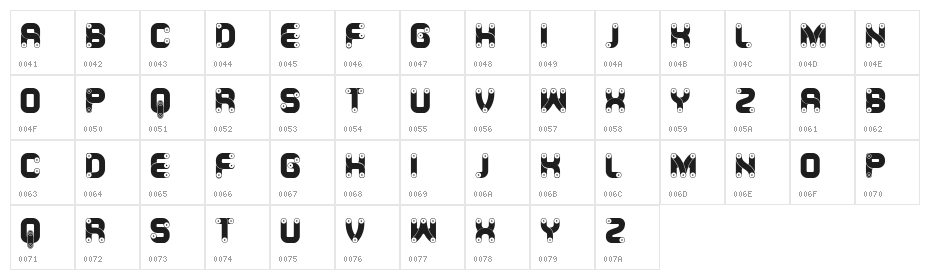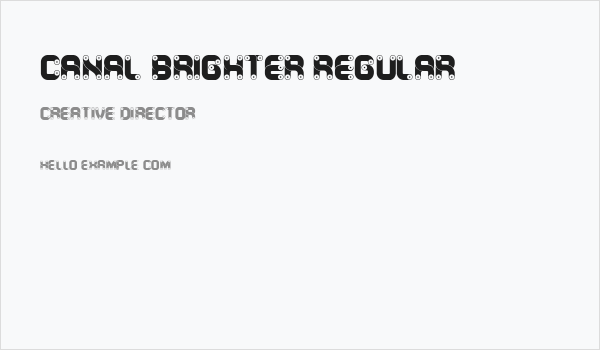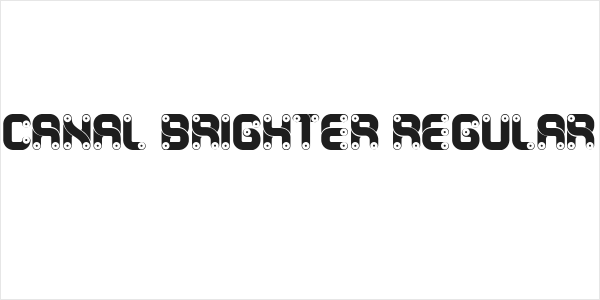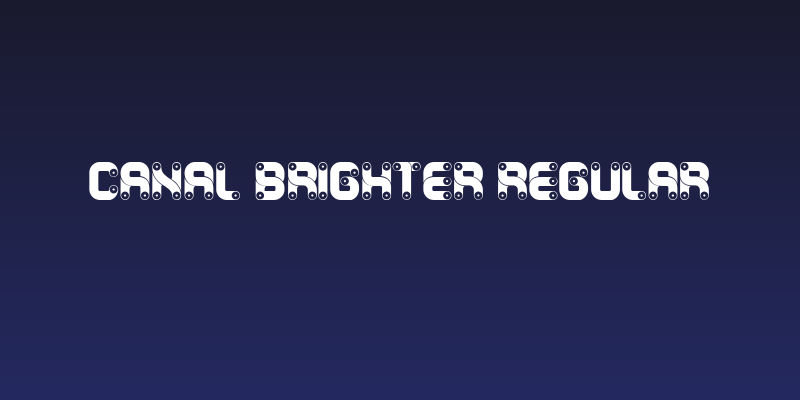
Canal Brighter Regular Font
Canal Brighter Regular Description
This font features a unique and playful design with a mechanical and industrial aesthetic. Each character is composed of bold, rounded shapes with circular cutouts, reminiscent of gears or mechanical parts. The letters are consistent in height and width, creating a uniform appearance that is both eye-catching and distinctive. The boldness of the characters ensures high visibility, making it suitable for attention-grabbing designs. The font's playful yet structured style makes it ideal for creative projects that require a modern and innovative touch.
| Proposed Projects | Ideal for branding, posters, and creative projects that require a modern, industrial look. |